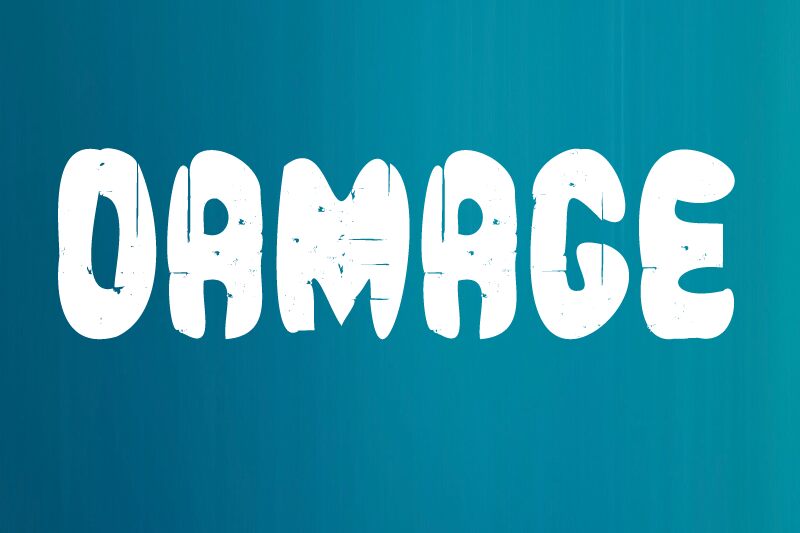
Damage Bold
The Damage Bold font by Design Vector10 is a stunning display typeface that adds an edgy and rebellious touch to any project. Its unique eroded style gives it a rough and worn look, making it perfect for designs that require a bold statement. The extra-condensed width of the font makes it ideal for headings, titles, and logos where space is limited. Whether you're designing posters, album covers, or even fashion branding, the Damage Bold font is sure to stand out with its boldness and striking appearance. Let this powerful typeface bring your creative vision to life!